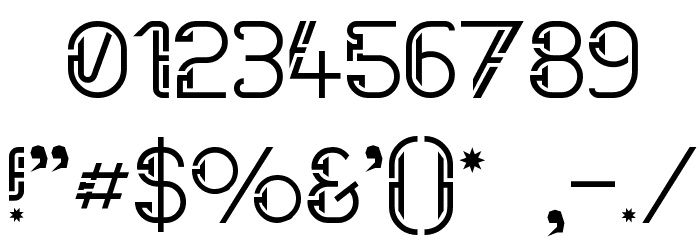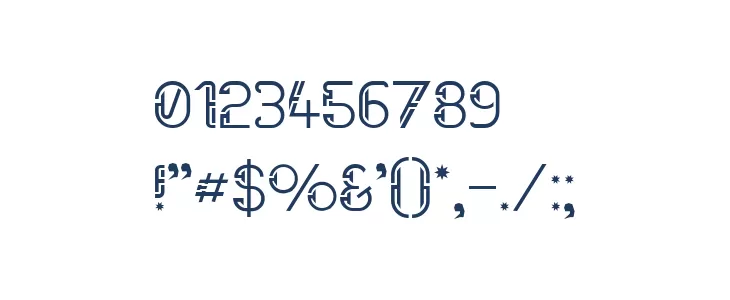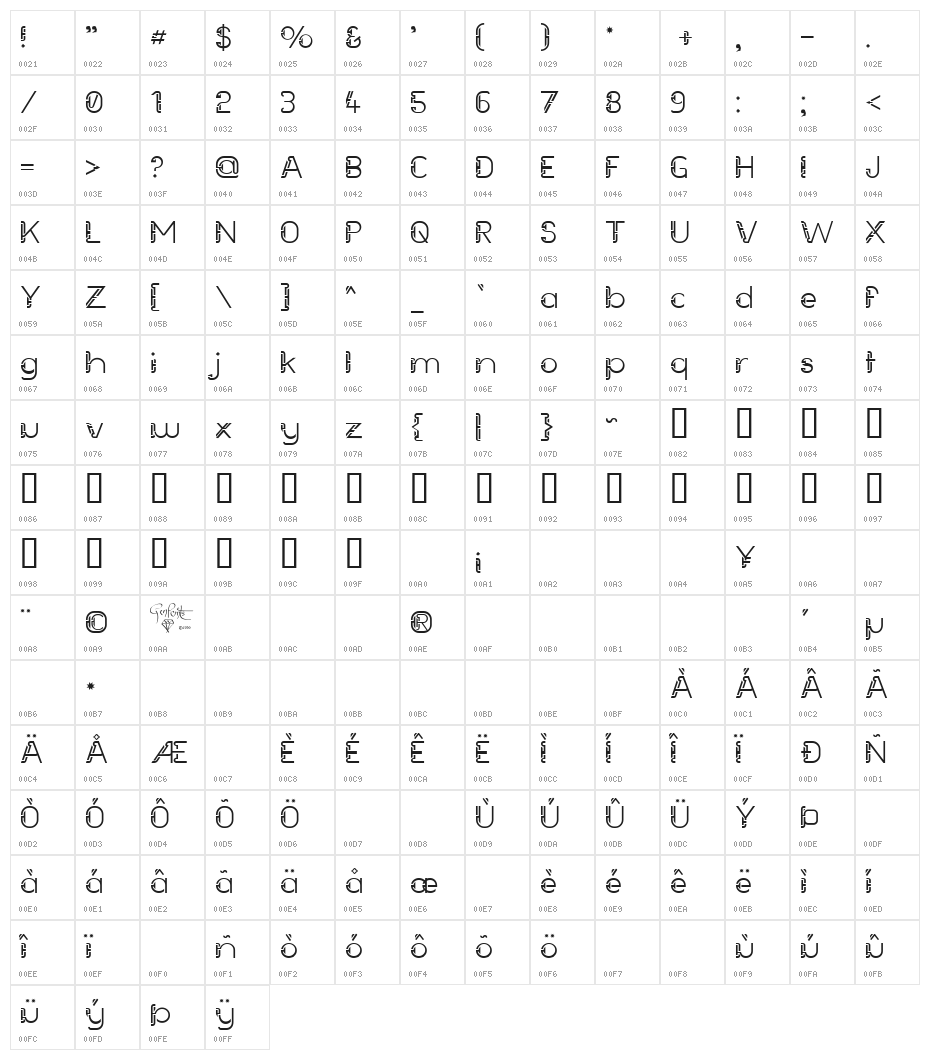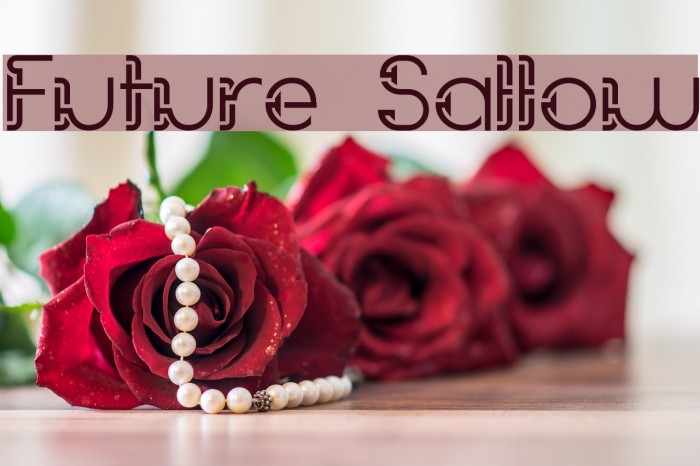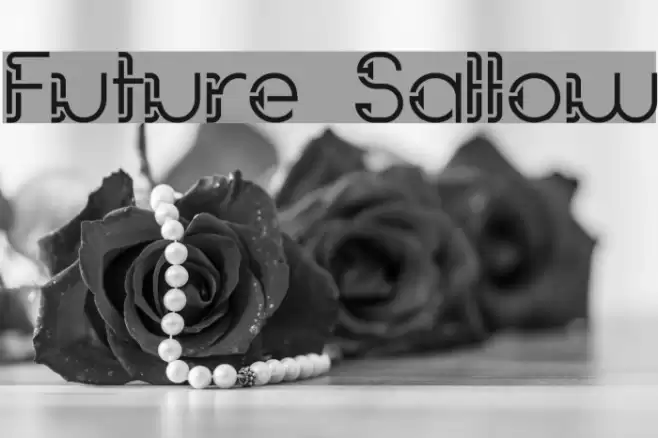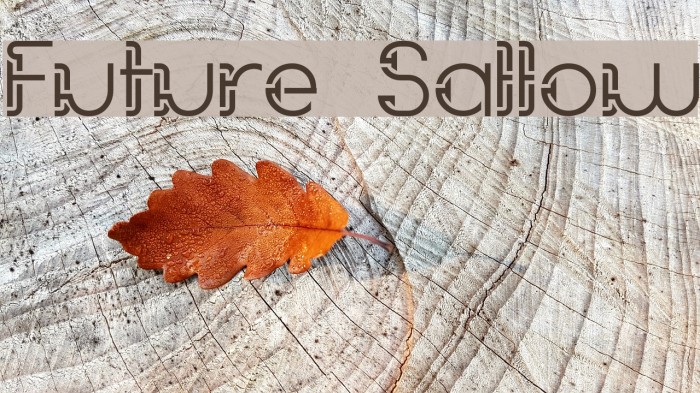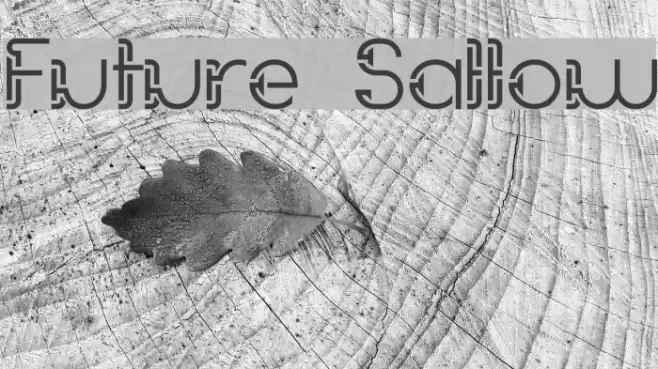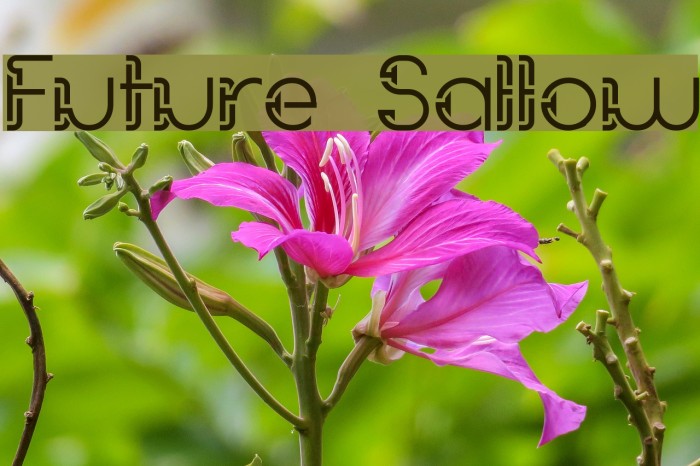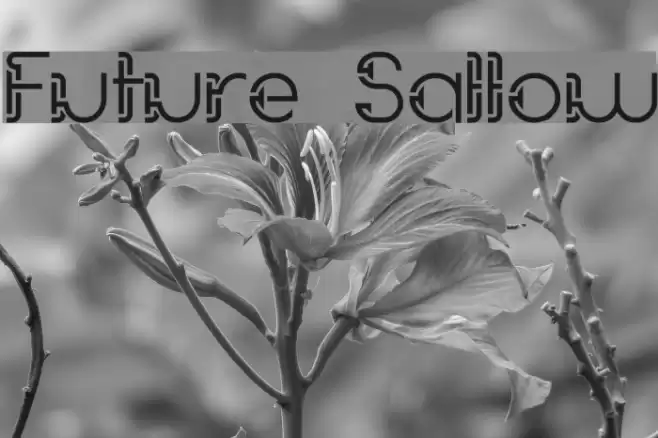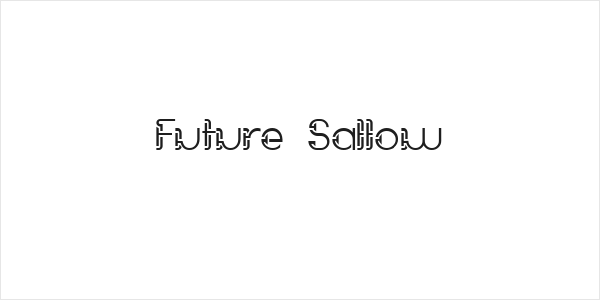
Future Sallow Font
Future Sallow Description
This font features a futuristic and geometric design with a unique, stencil-like appearance. The characters are constructed with clean lines and open spaces, giving them a modern and airy feel. The uppercase and lowercase letters maintain a consistent style, with rounded edges and a balance between straight and curved elements. Numbers and special characters follow the same design principles, ensuring uniformity across all glyphs. The font's distinct style makes it suitable for projects that require a contemporary and innovative look.
| Proposed Projects | Ideal for tech branding, sci-fi themed projects, modern posters, and innovative product packaging. |